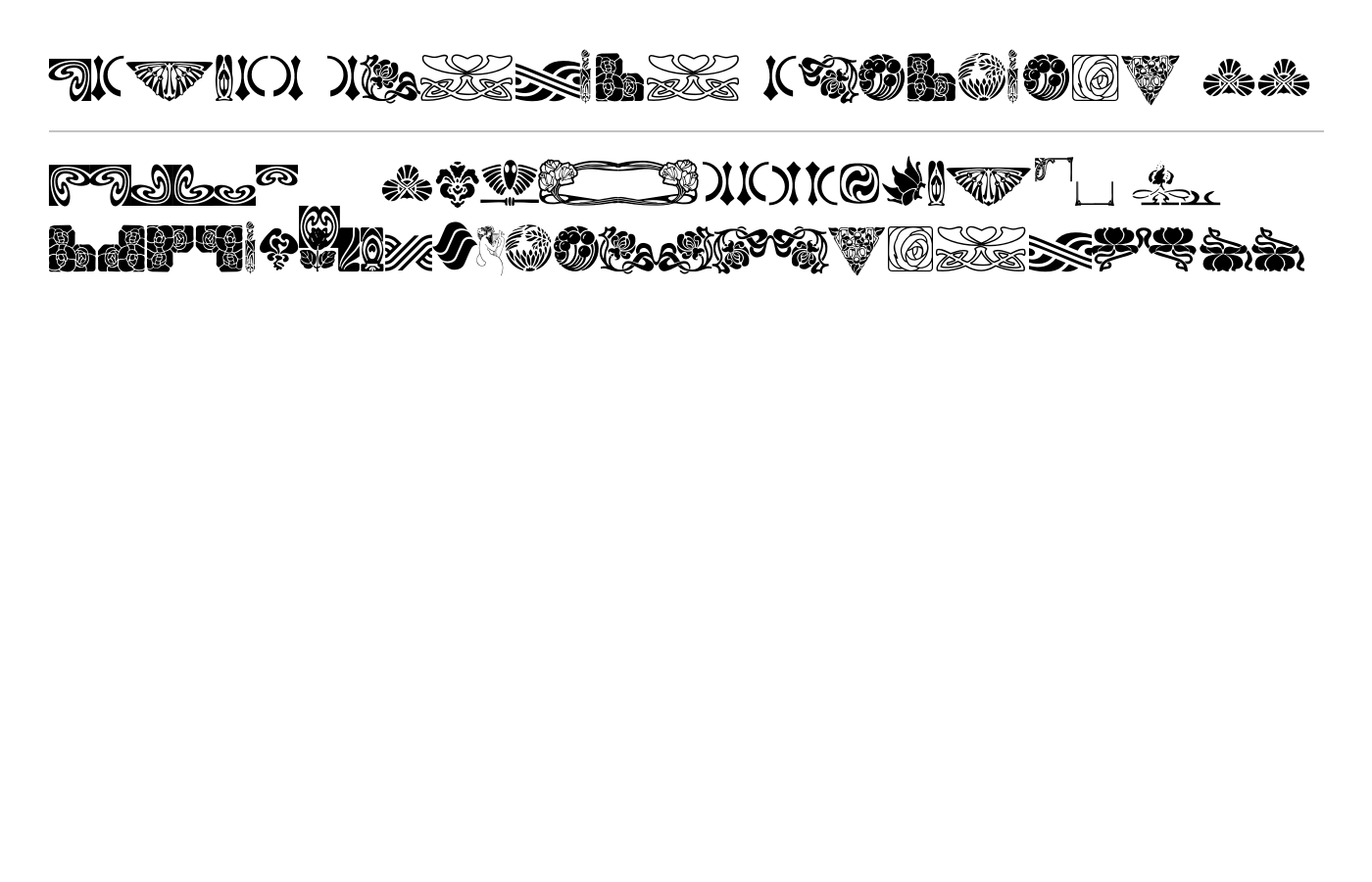
Bouton Nouveau Ornaments II is a decorative font featuring intricate, stylized floral and geometric motifs inspired by Art Nouveau design. Its detailed and elegant ornamental shapes make it perfect for adding a vintage, sophisticated touch to branding, packaging, invitations, and decorative headlines where ornamental flair is desired. This font works best when used sparingly as accents to create luxurious and artistic visual appeal.
BOUTON Nouveau Ornaments II Font
About BOUTON Nouveau Ornaments II Font
| Font family | BOUTON Nouveau Ornaments II Font |
| Designer | Gary David Bouton |